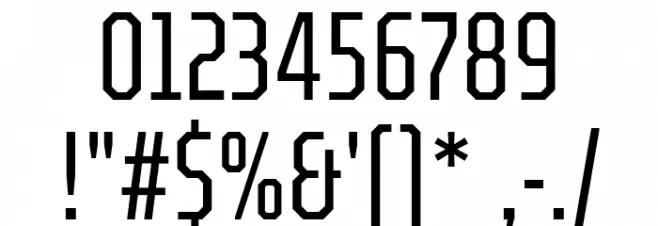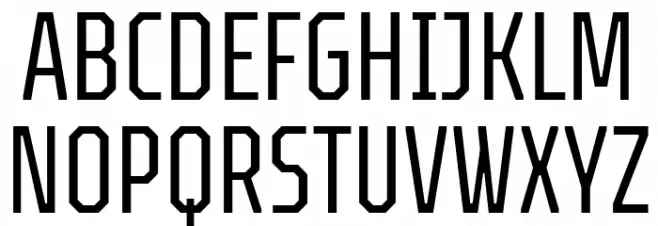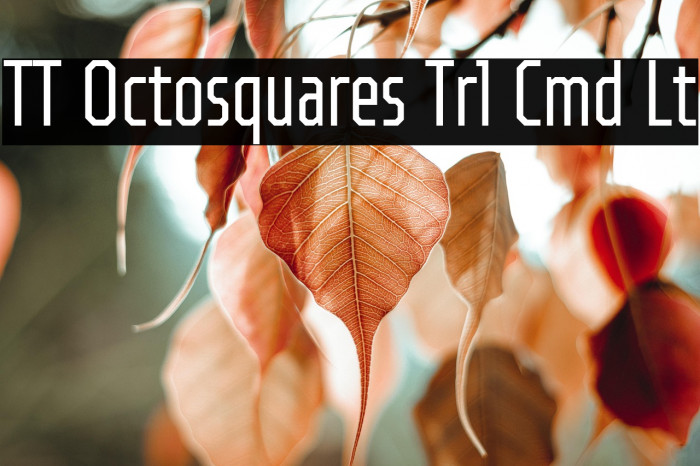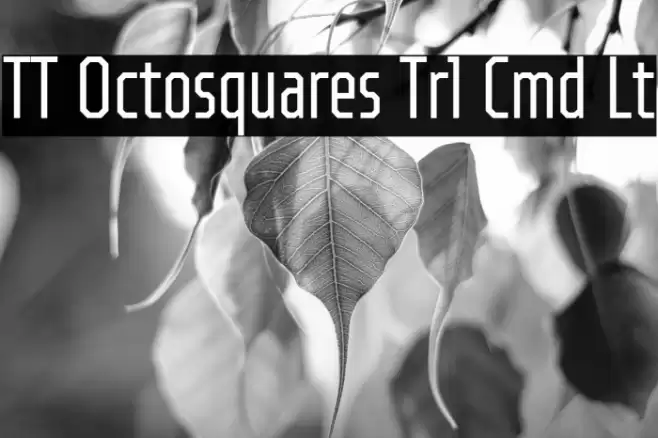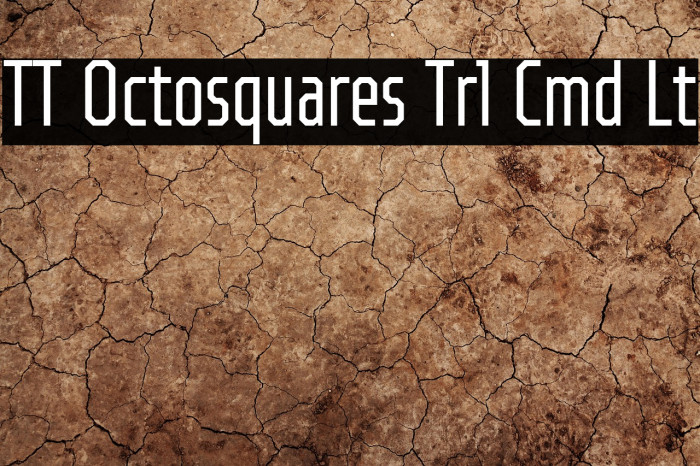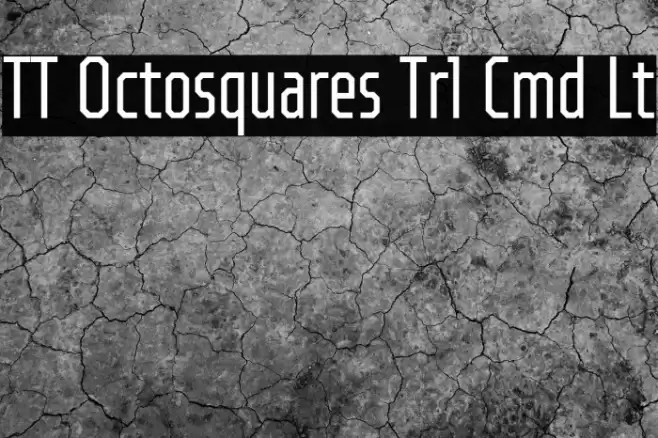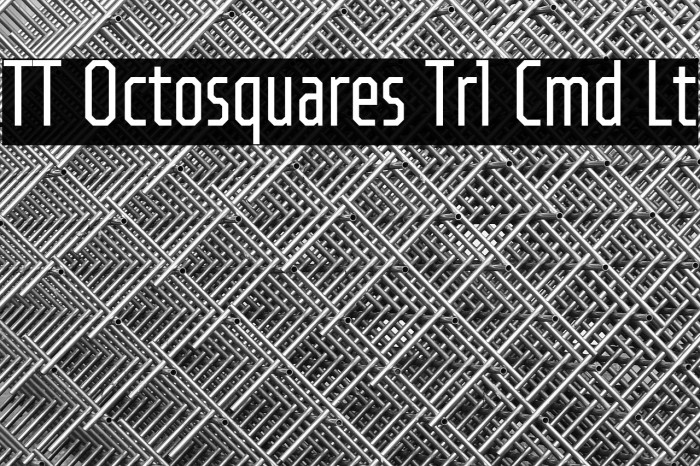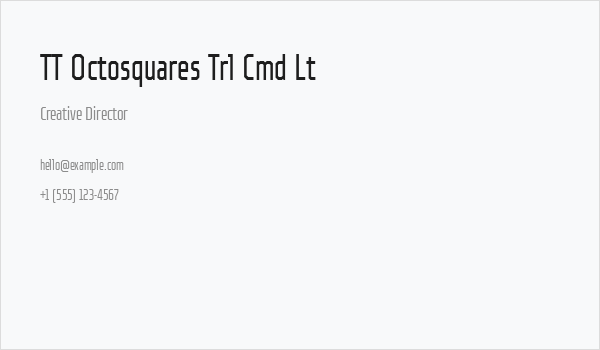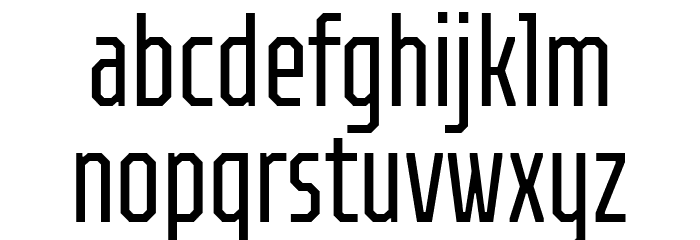
TT Octosquares Trl Cmd Lt Font
TT Octosquares Trl Cmd Lt Description
This font features a geometric and modern design with a distinct square-like appearance. The characters are structured with clean, straight lines and sharp angles, giving it a futuristic and technical feel. The uppercase and lowercase letters maintain a consistent height, while the numerals and special characters are designed to match the overall aesthetic. The font's uniformity and precision make it suitable for digital and print applications where a contemporary and edgy look is desired.
| Use Case | Logos, Headlines, Digital Interfaces |
| Proposed Projects | Ideal for technology branding, digital interfaces, modern posters, and futuristic-themed projects. |